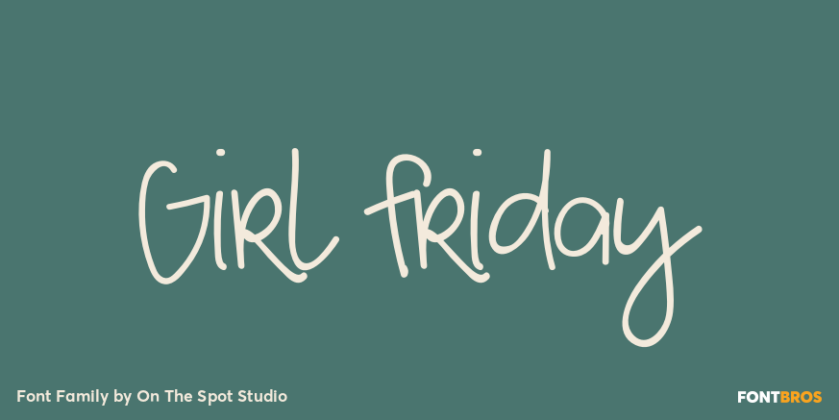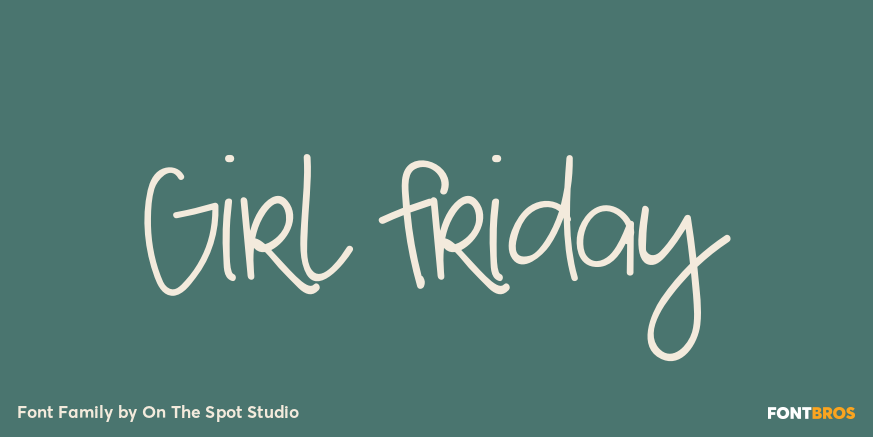
Girl Friday
Girl Friday is a fun journaling font great for prints, logo design, tee shirt & product design, and more. You may use this font on products you intend to sell, however you may NOT share the font file between yourself and other employees (i have a separate…